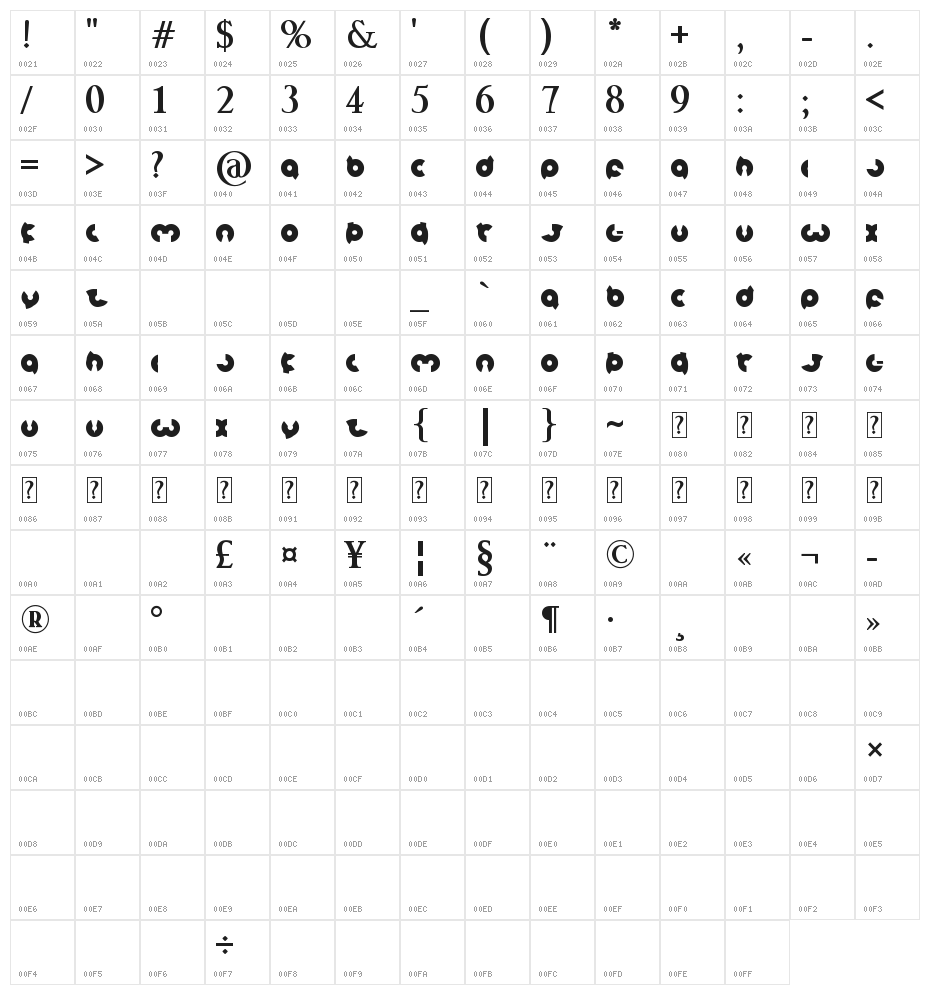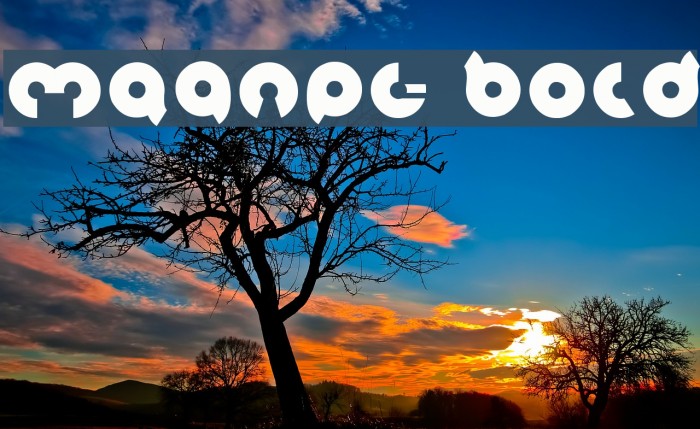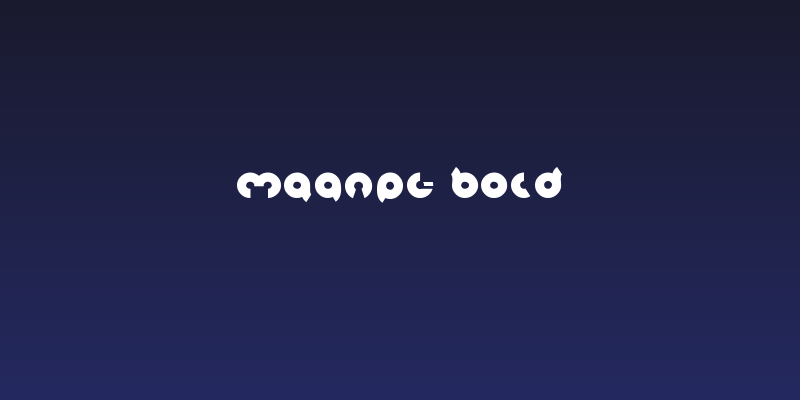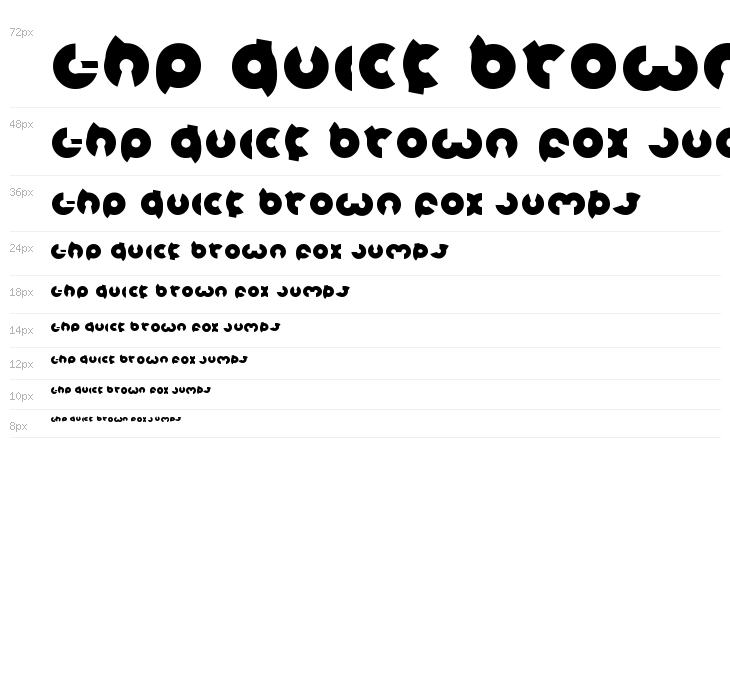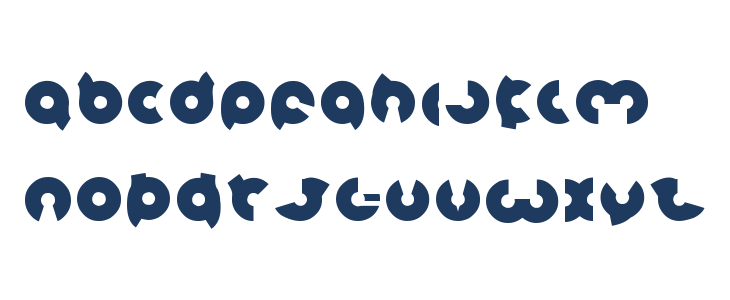
magnet Bold Font
magnet Bold Description
This font features a bold and striking design with thick, rounded strokes that create a sense of weight and presence. The characters are uniquely styled with a modern twist, incorporating geometric elements that give them a distinctive look. The uppercase and lowercase letters maintain a consistent style, with a playful yet sophisticated appearance. The numerals are clear and bold, ensuring readability, while the special characters are designed to complement the overall aesthetic. This font is ideal for making a statement, with its high contrast and eye-catching design.
| Proposed Projects | Ideal for branding, headlines, posters, and any project requiring a bold statement. |